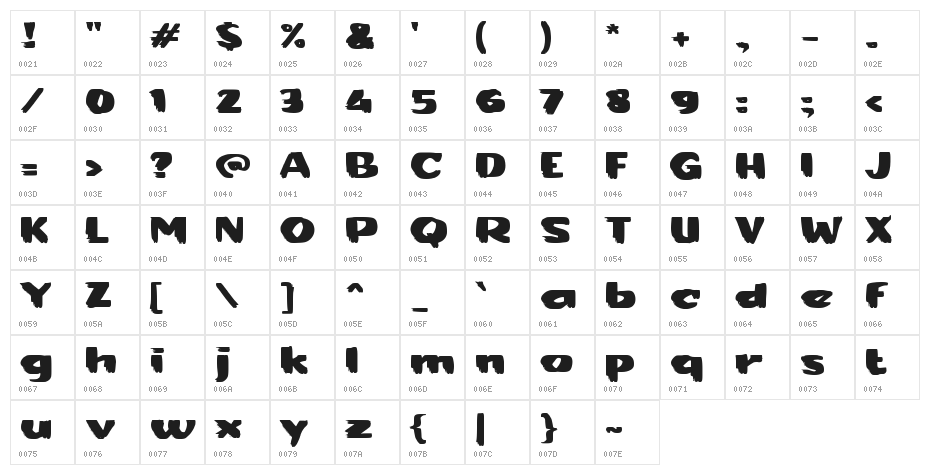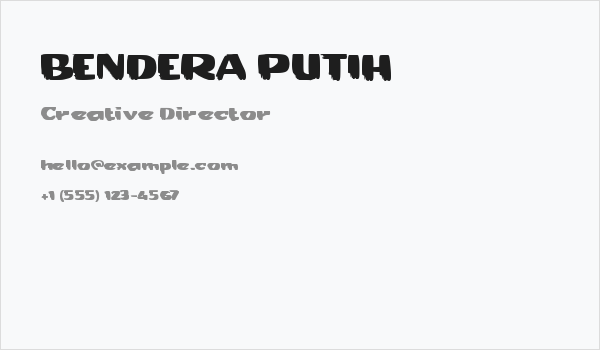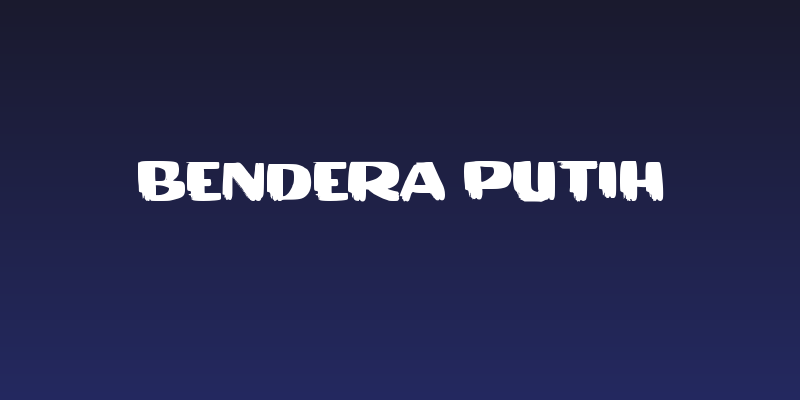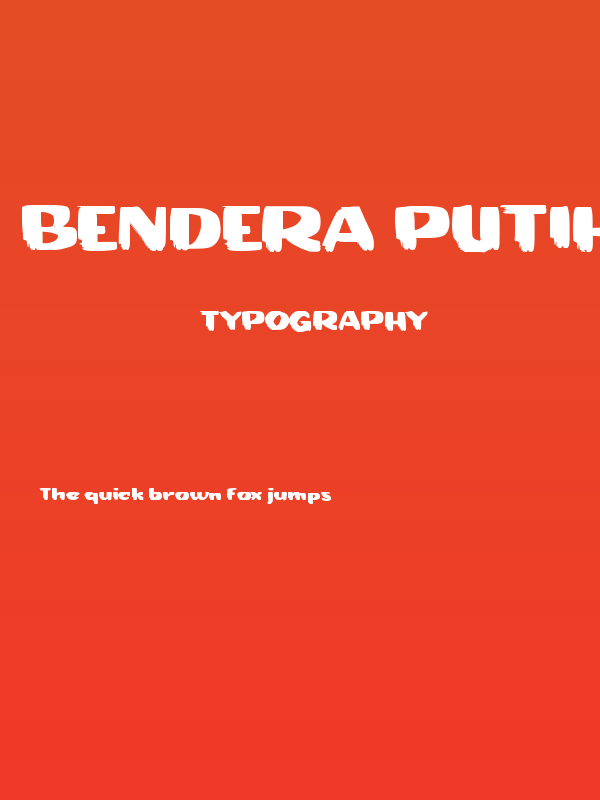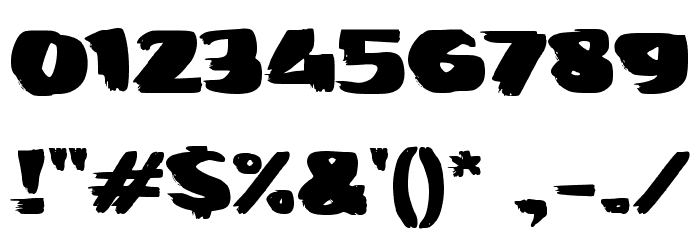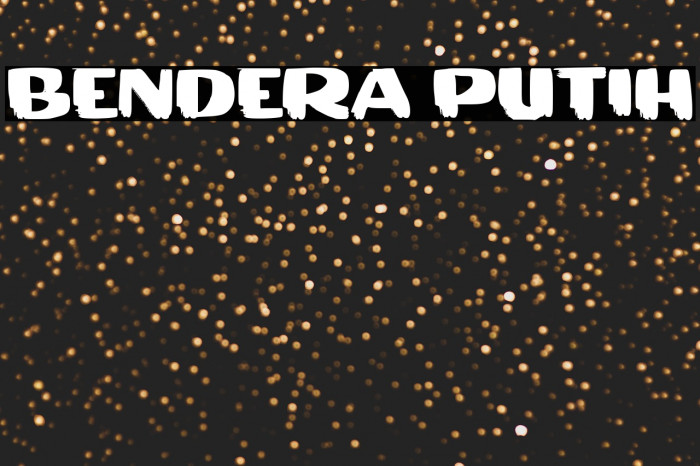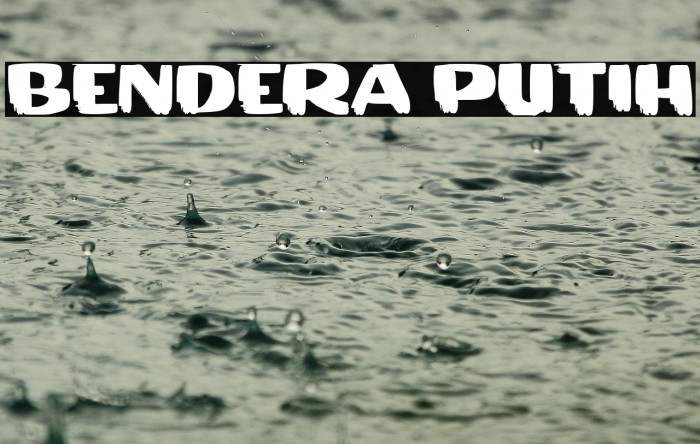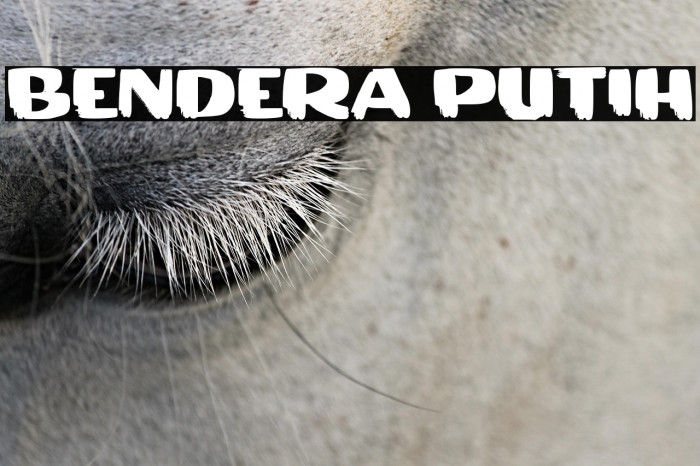
BENDERA PUTIH Font
BENDERA PUTIH Description
This font features a bold and dynamic brushstroke style, characterized by its thick, uneven strokes that create a sense of movement and energy. The letters have a hand-painted appearance, with irregular edges and varying stroke widths that add a raw, artistic flair. The uppercase and lowercase letters maintain a consistent style, while the numerals and special characters complement the overall aesthetic. This font's boldness and unique texture make it stand out, offering a visually striking option for creative projects.
| Overall Style | Artistic, Dynamic |
| Proposed Projects | Ideal for posters, album covers, branding, and any project requiring a bold, artistic touch. |